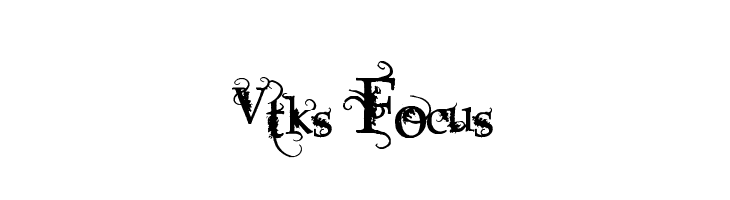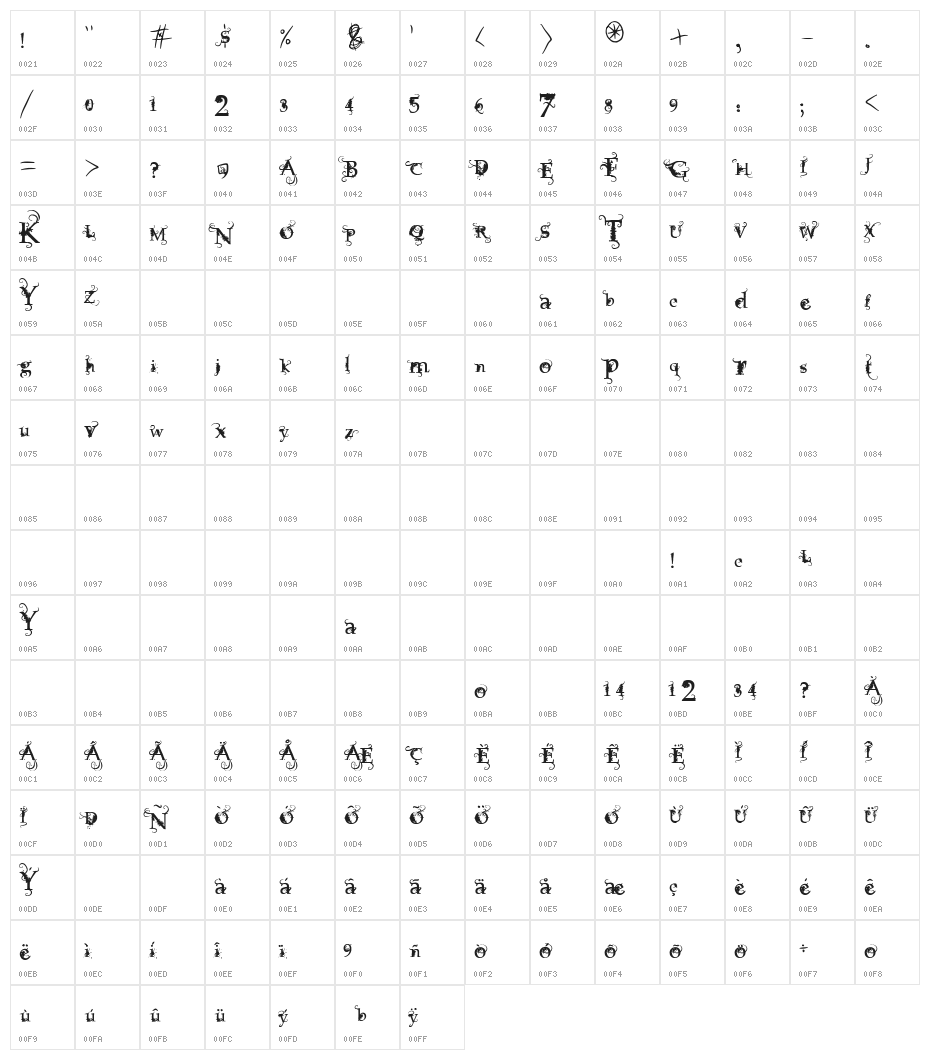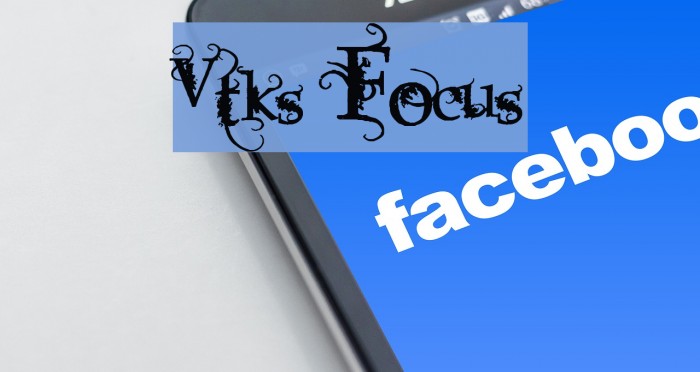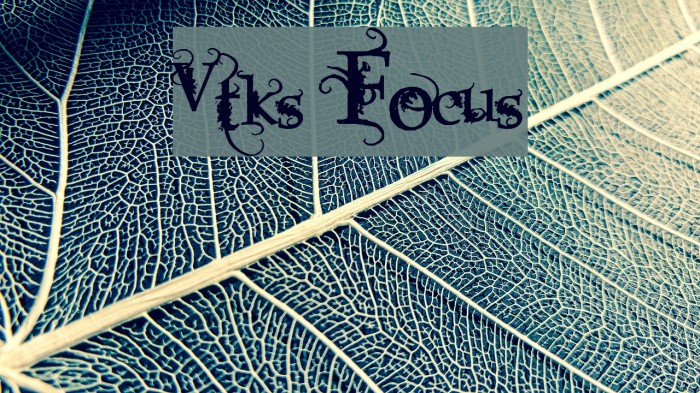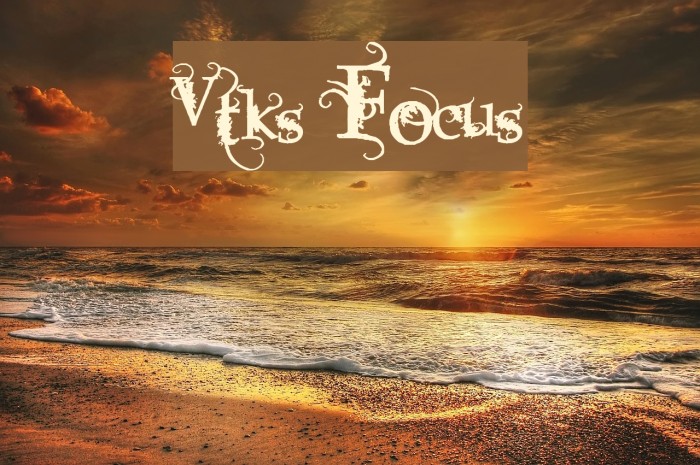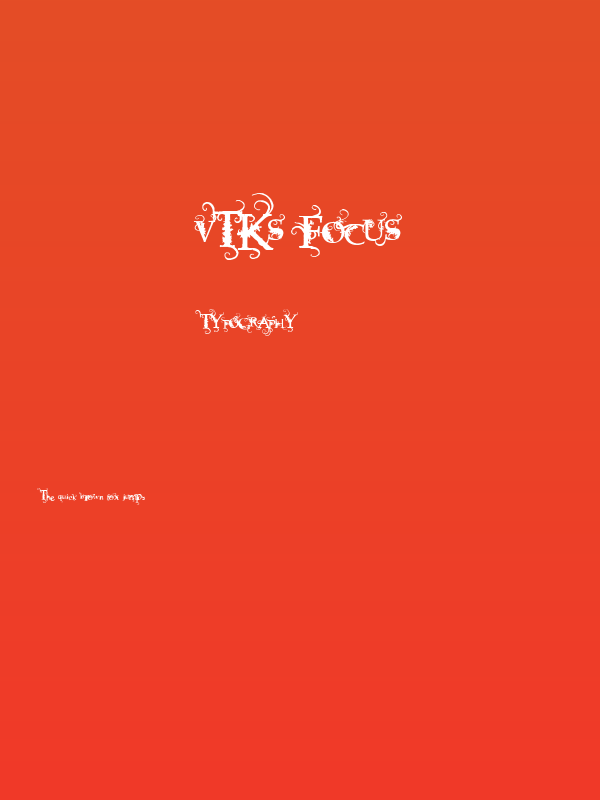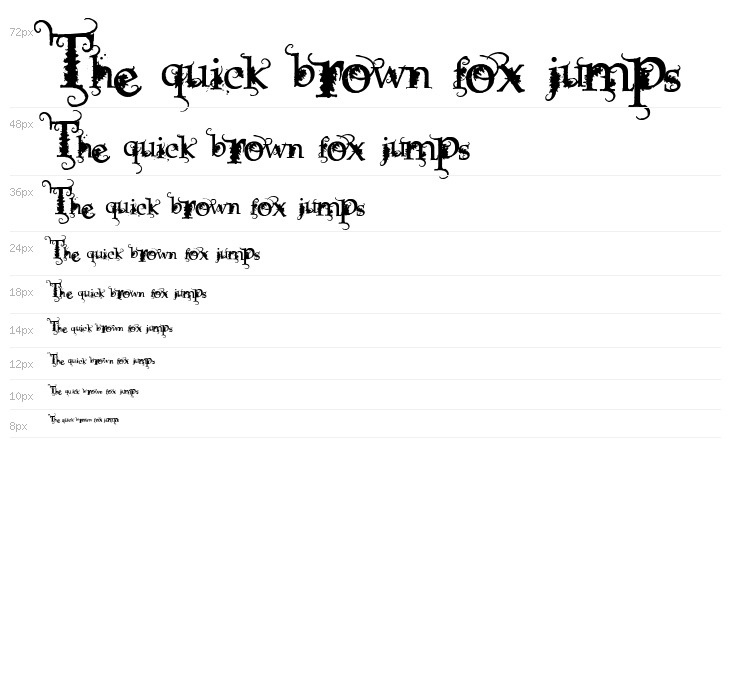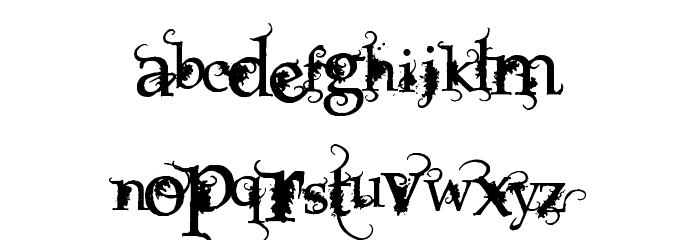
Vtks Focus Font
Vtks Focus Description
This font features an intricate and decorative style, characterized by elaborate swirls and flourishes that extend from the main strokes of each character. The uppercase letters are particularly ornate, with embellishments that give them a whimsical and artistic appearance. The lowercase letters maintain a similar decorative theme, though slightly more subdued, allowing for readability while still retaining a unique flair. Numbers and special characters are equally adorned, making them stand out with their artistic design. The overall aesthetic is reminiscent of a gothic or fantasy theme, suitable for projects that require a dramatic and eye-catching typeface.
| Proposed Projects | Ideal for fantasy-themed designs, gothic posters, book covers, and artistic invitations. |